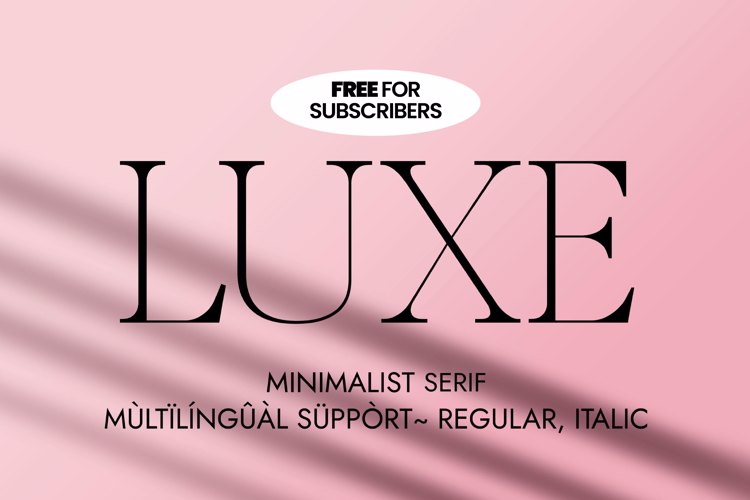
LUXE Font
๐จ Font Name: Luxe by Minimalist Art Studio
๐จ Font Description: Luxe is a minimalist serif with high-end elegance and multilingual supportโperfect for luxury branding, editorial finesse, and refined packaging.
โ Complete Latin set + multilingual diacritics
โ Alternates, stylistic sets & ligatures
โ Numbers, small caps, and extended punctuation
โ Bonus italics and family styles